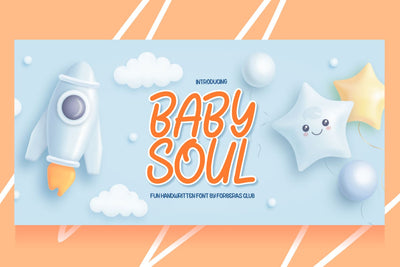
Baby Soul
Introducing Baby Soul Font by Forberas Club
Baby Soul is a Modern Handwritten Font. Baby Soul is perfect for book cover, product packaging, branding project, megazine, social media, wedding, or just used to express words above the background.This font includes TTF and OTF, This font also multilingual support.